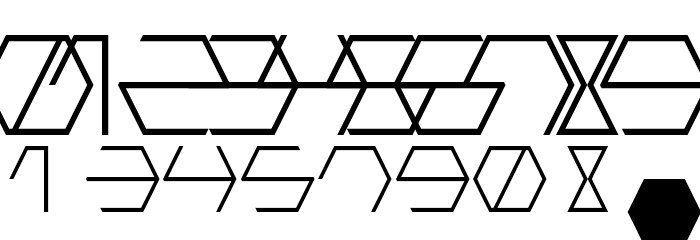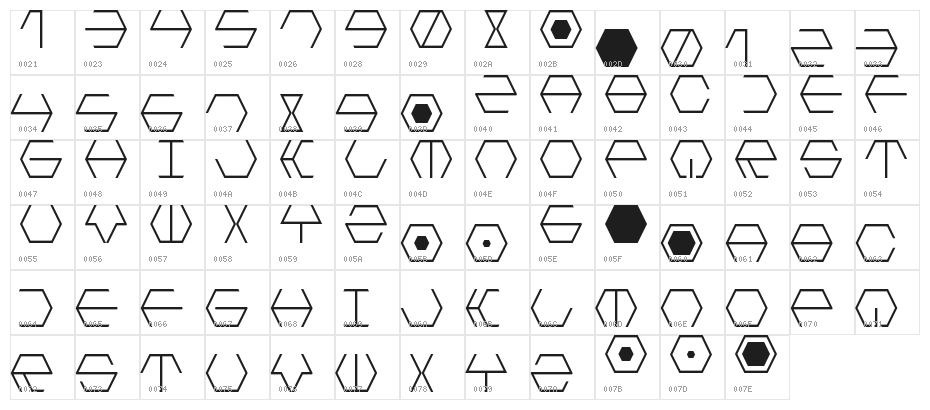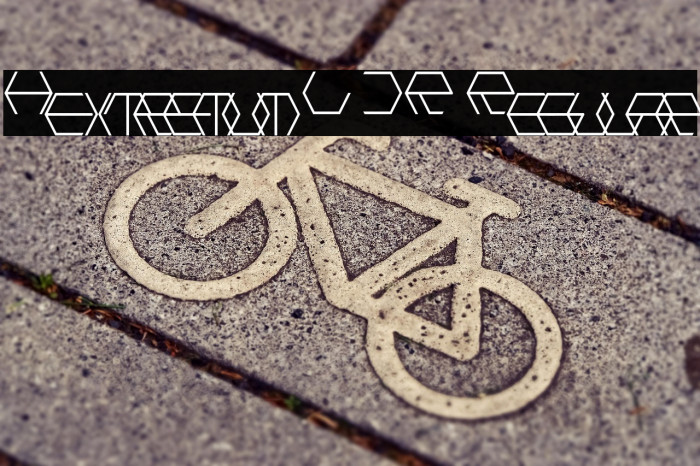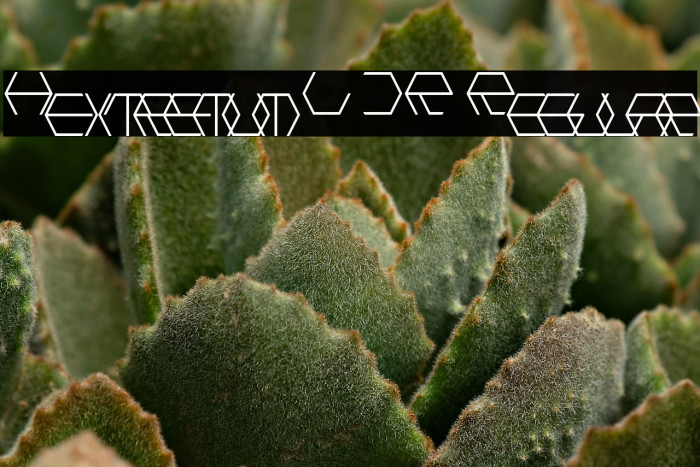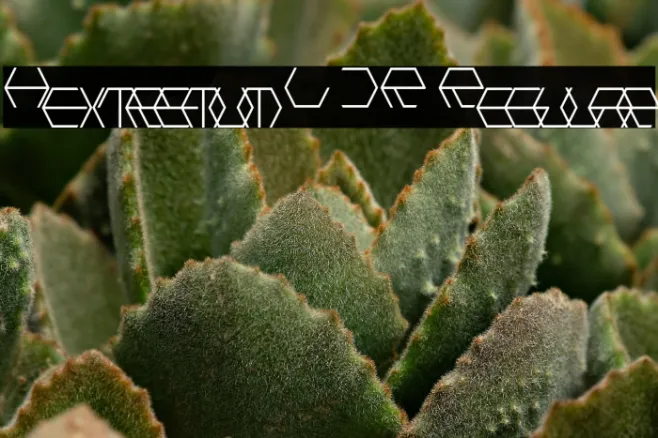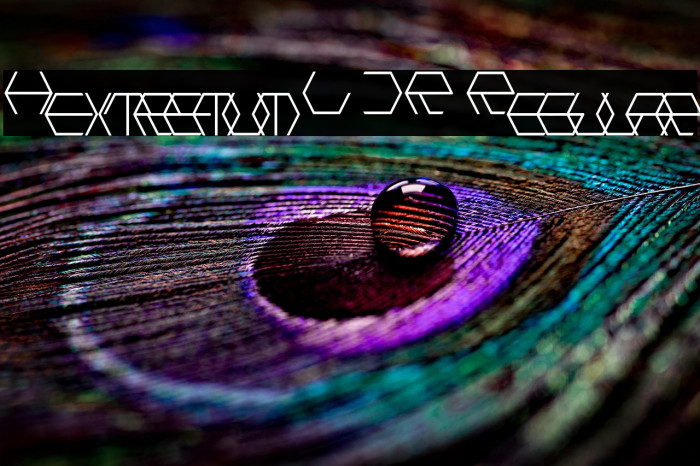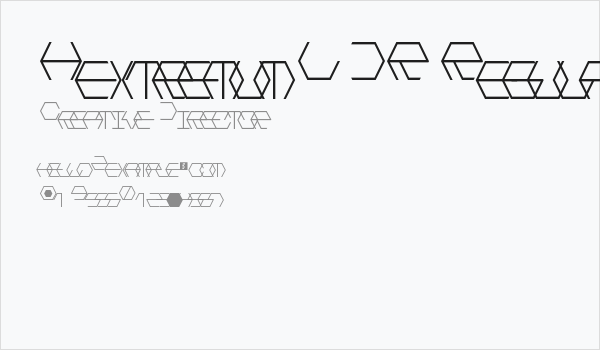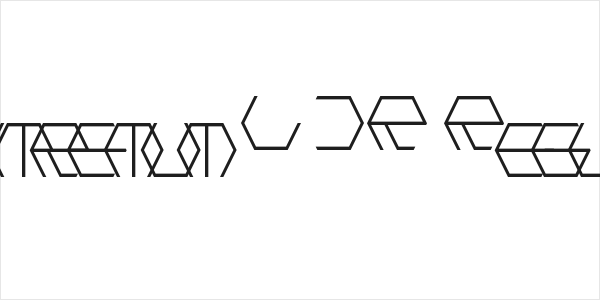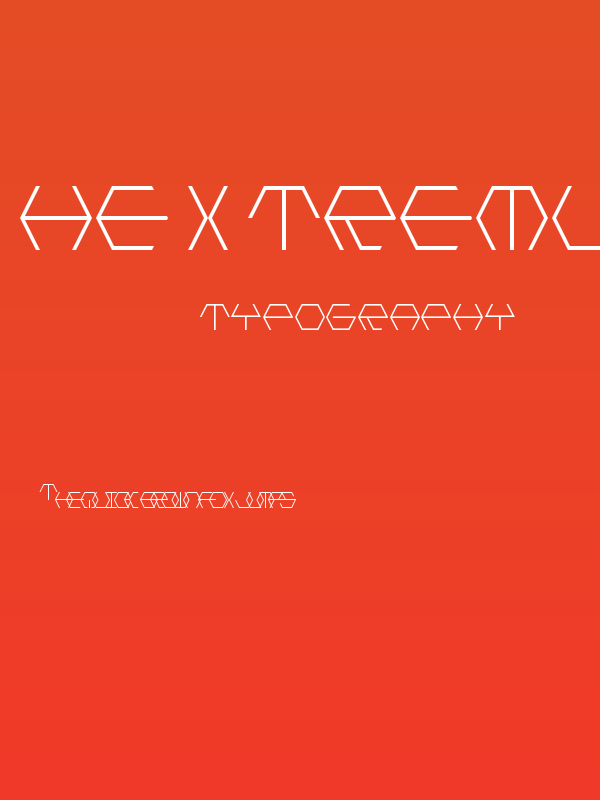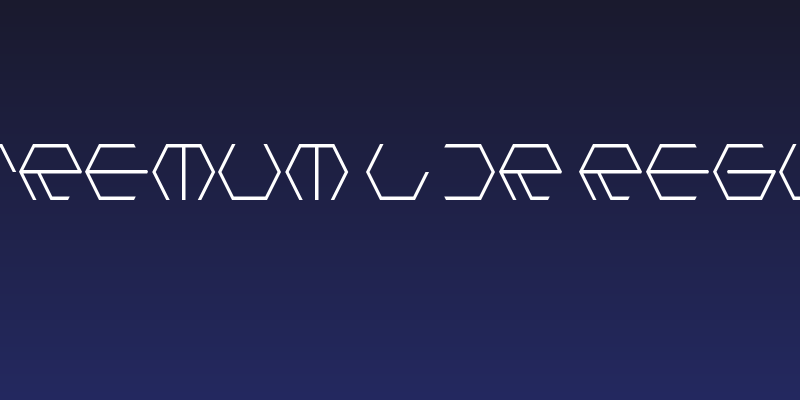
Hextremum LDR Regular Font
Hextremum LDR Regular Description
This font features a futuristic and geometric design, characterized by its angular and hexagonal shapes. Each character is constructed with bold, straight lines that form a cohesive and interconnected pattern, giving it a highly stylized and modern appearance. The uppercase and lowercase letters maintain a consistent design theme, with the numbers and special characters following suit. The overall aesthetic is reminiscent of digital or sci-fi themes, making it suitable for projects that require a cutting-edge and innovative look. The font's unique structure ensures that it stands out, making it ideal for attention-grabbing designs.
| Proposed Projects | Ideal for sci-fi themed designs, tech branding, video game titles, and futuristic posters. |